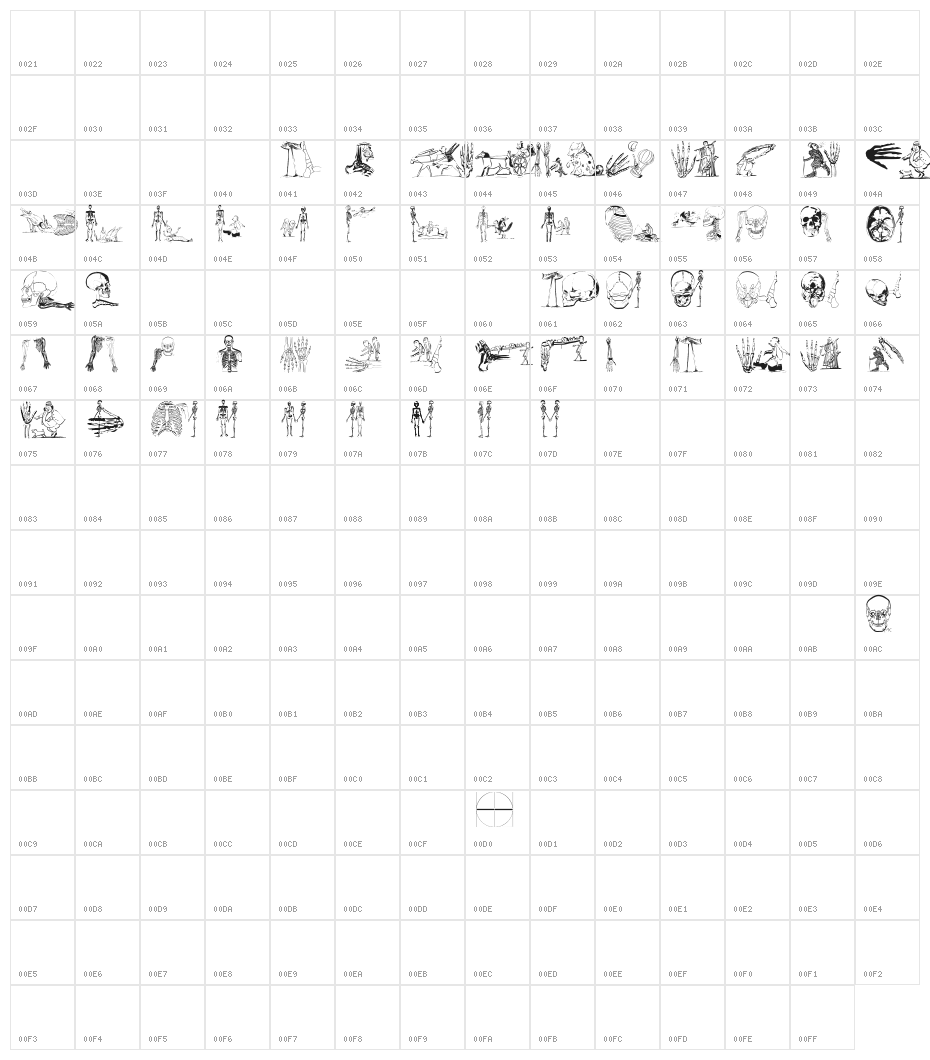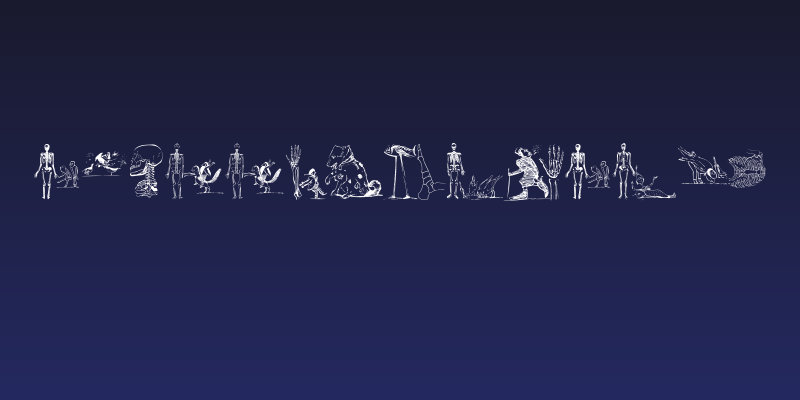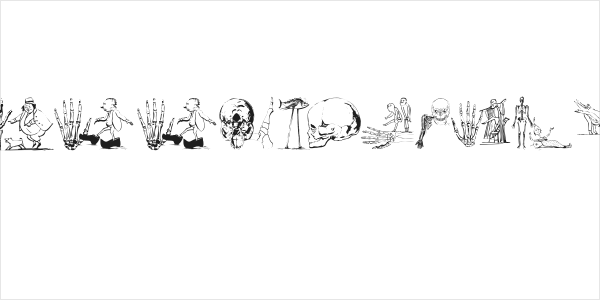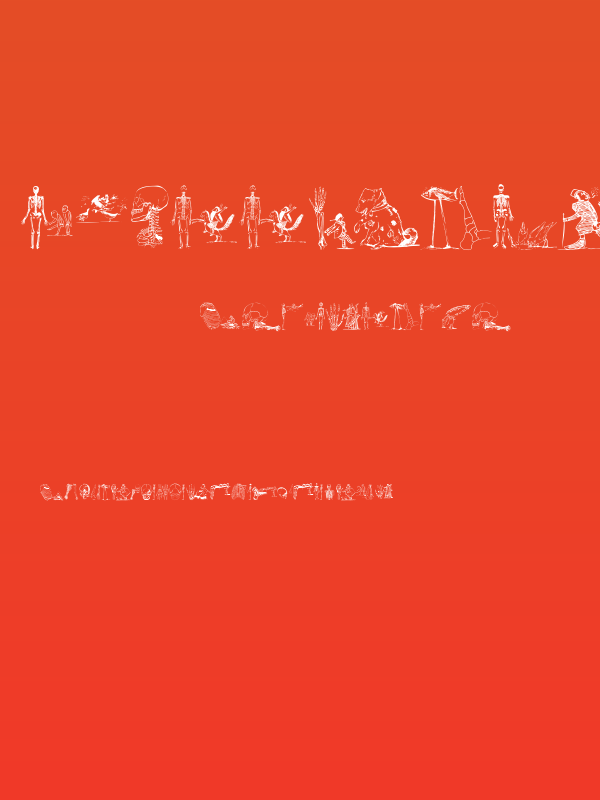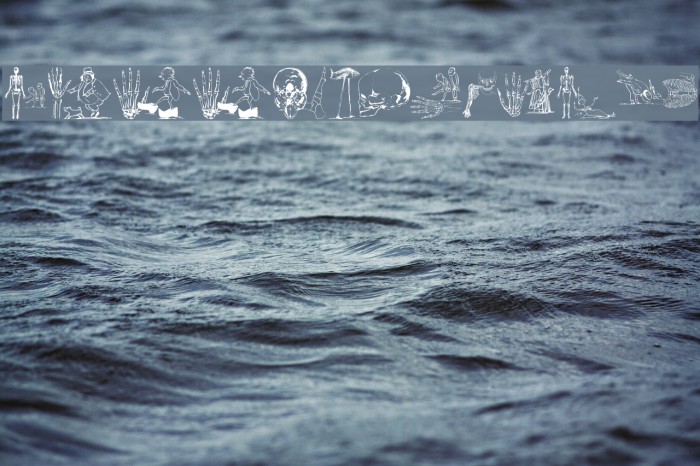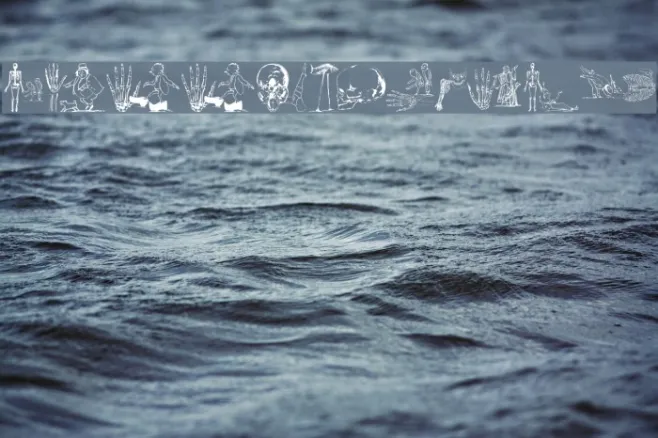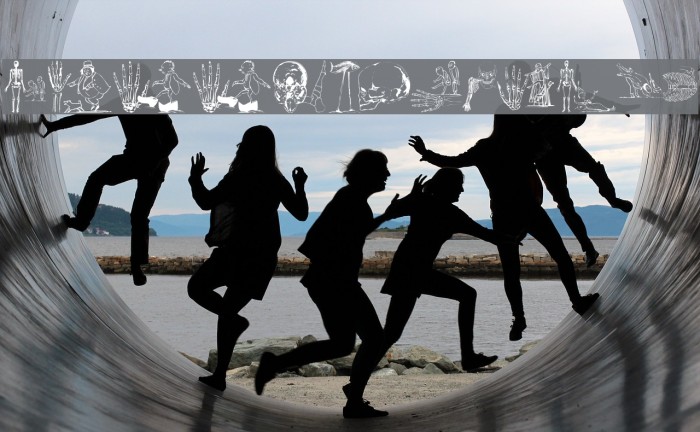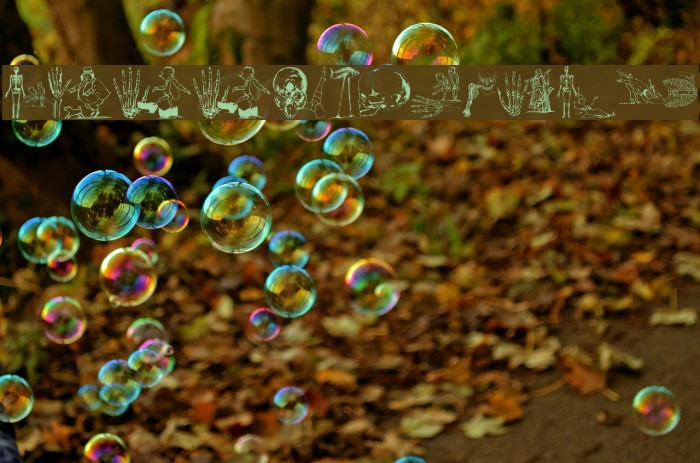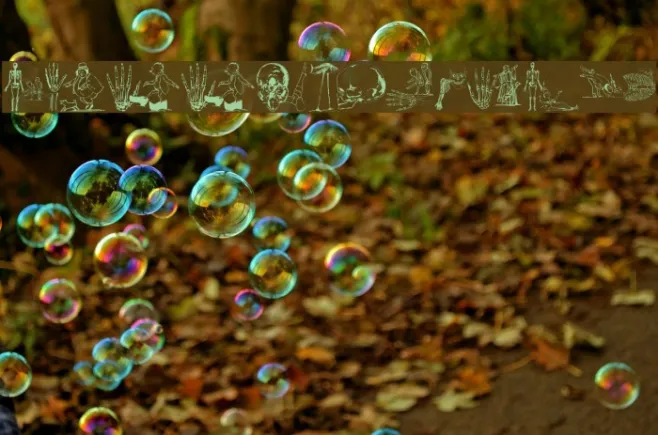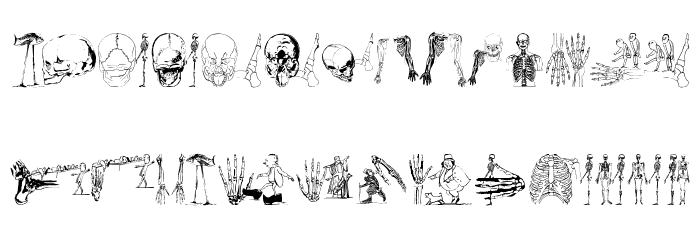
SurrealisMK Font
SurrealisMK Description
A highly decorative and surreal display font composed of intricate anatomical and skeletal illustrations forming each character, with a hand-drawn, sketch-like quality and significant visual complexity.
| Overall Style | Surreal, Artistic, Decorative |
| Use Case | Logos, Headlines, Posters, Artistic projects |
| Proposed Projects | Album covers, horror or medical-themed posters, experimental art projects, book covers, event flyers, and creative branding. |